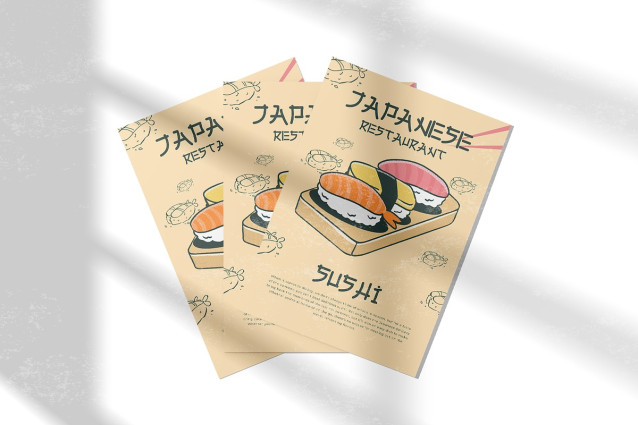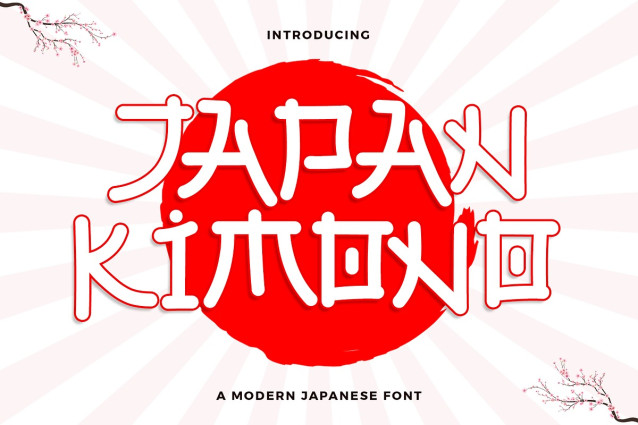
Japan Kimono Font
Japan Kimono Font a modern Japanese font that seamlessly blends cultural elegance with contemporary style. Perfect for graphic designers, typographers, and creatives seeking to incorporate a touch of Japanese artistry into their projects, Japan Kimono offers a unique typeface that captures the beauty and precision of traditional Japanese calligraphy with a modern twist.